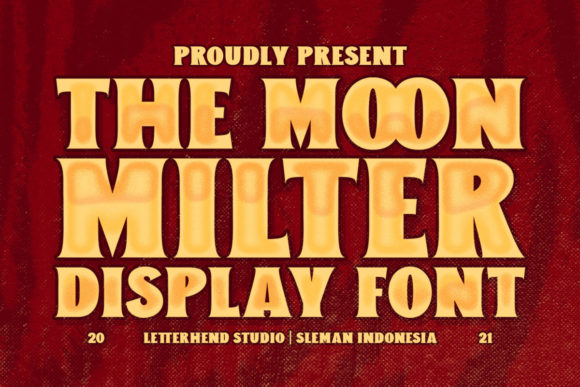
Journey back to the captivating era of the 1950s and 1960s with Moon Milter, a vintage serif font that exudes nostalgia and timeless charm. Inspired by eye-catching signage, this font embodies the spirit of classic aesthetics, bringing a touch of retro elegance to your creative projects. Immerse yourself in the allure of Moon Milter, meticulously crafted to evoke a sense of longing for the golden age of design.
Unleash your creativity and let Moon Milter transform your designs into captivating masterpieces. Its versatile nature makes it the perfect choice for a wide range of projects, from logos and headlines that command attention to invitations and labels that ooze sophistication. With Moon Milter, your words will dance gracefully across the page, leaving an unforgettable impression on your audience.
Elevate your designs to new heights with Moon Milter. Its distinct character adds a touch of intrigue and visual interest to any project, making your creations stand out from the crowd. Whether you're designing for magazines, books, or greeting cards, Moon Milter will effortlessly elevate your work, leaving your audience captivated by its timeless beauty.
Indulge in the limitless possibilities of Moon Milter. Its versatility extends to fashion, make-up, stationery, and novels, making it the ultimate choice for creative expression. Whether you're designing packaging that exudes sophistication or creating captivating advertisements that leave a lasting impact, Moon Milter will effortlessly adapt to your vision, transforming your ideas into tangible works of art.
Embrace the power of nostalgia and make a statement with Moon Milter. Its ability to transport your audience to a bygone era will leave them yearning for more. Trust Moon Milter to take your designs to new heights, creating a lasting impression that will resonate with your audience and solidify your brand's identity. Download Moon Milter today and embark on a creative journey that transcends time.